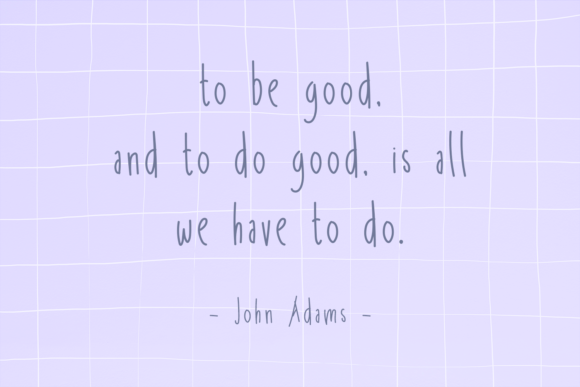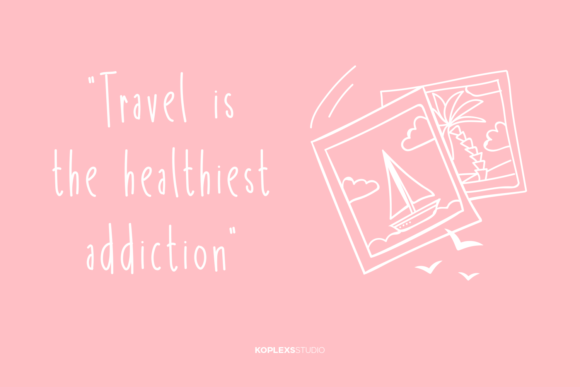
Wizard Font
db-ku.com - Script & Handwritten -- Wizard is a cute and simple handwritten font. No matter the topic, this font will be an incredible asset to your fonts’ library, as it has the potential to elevate any creation.